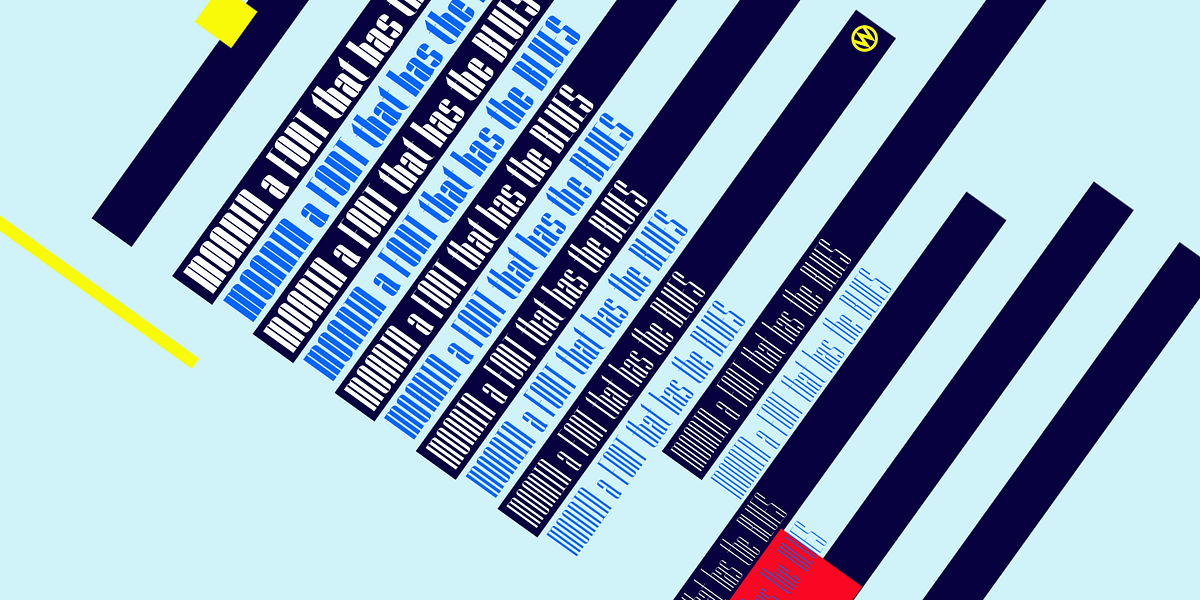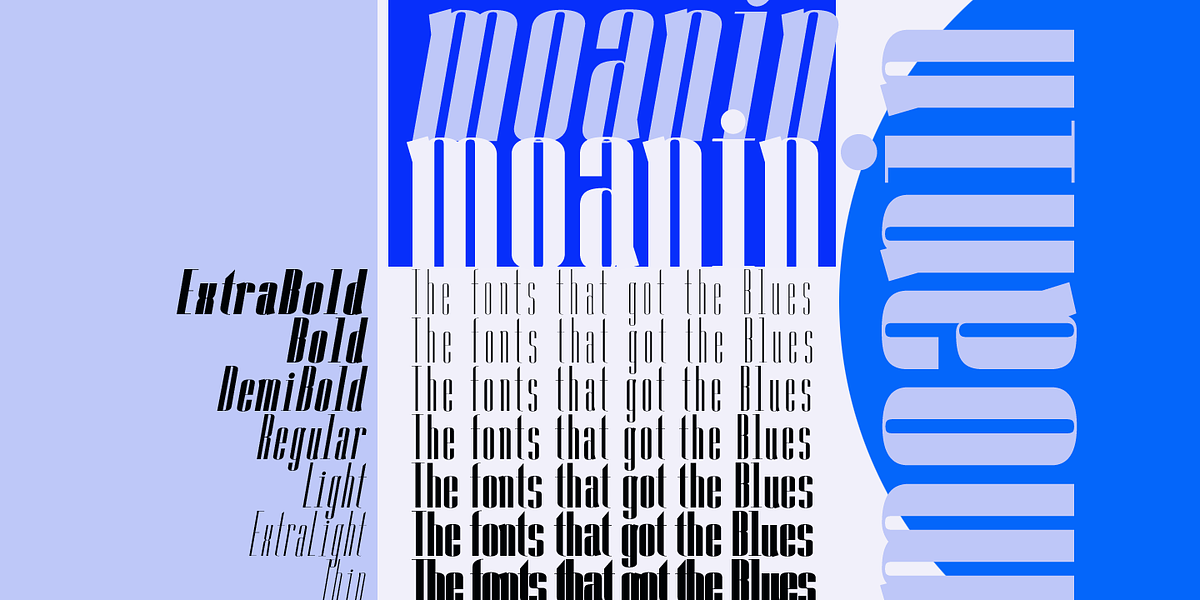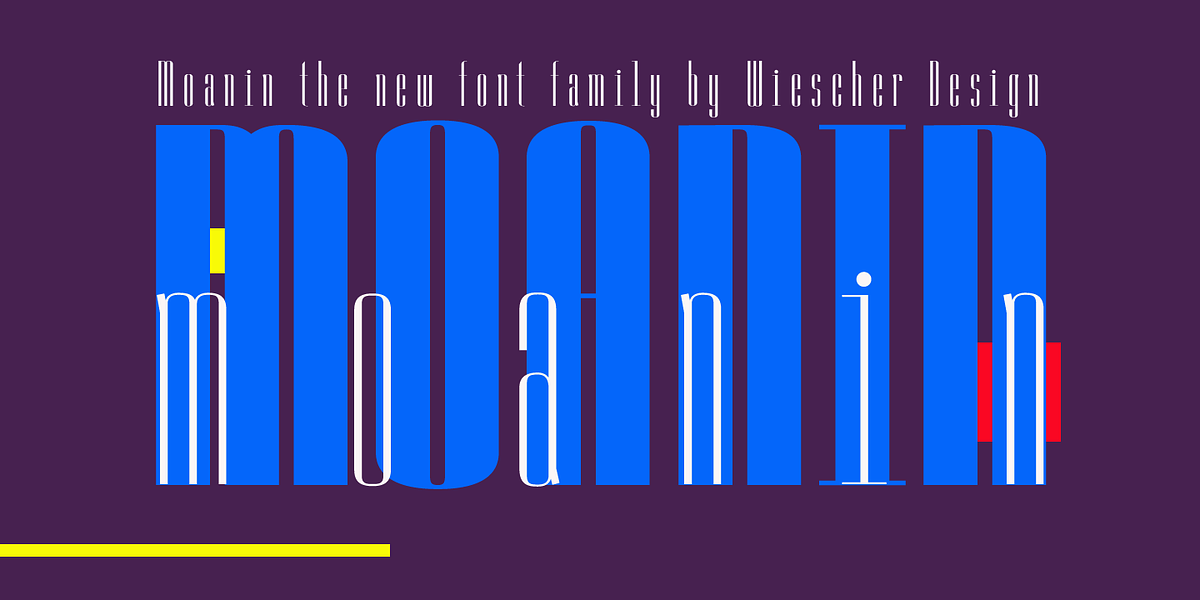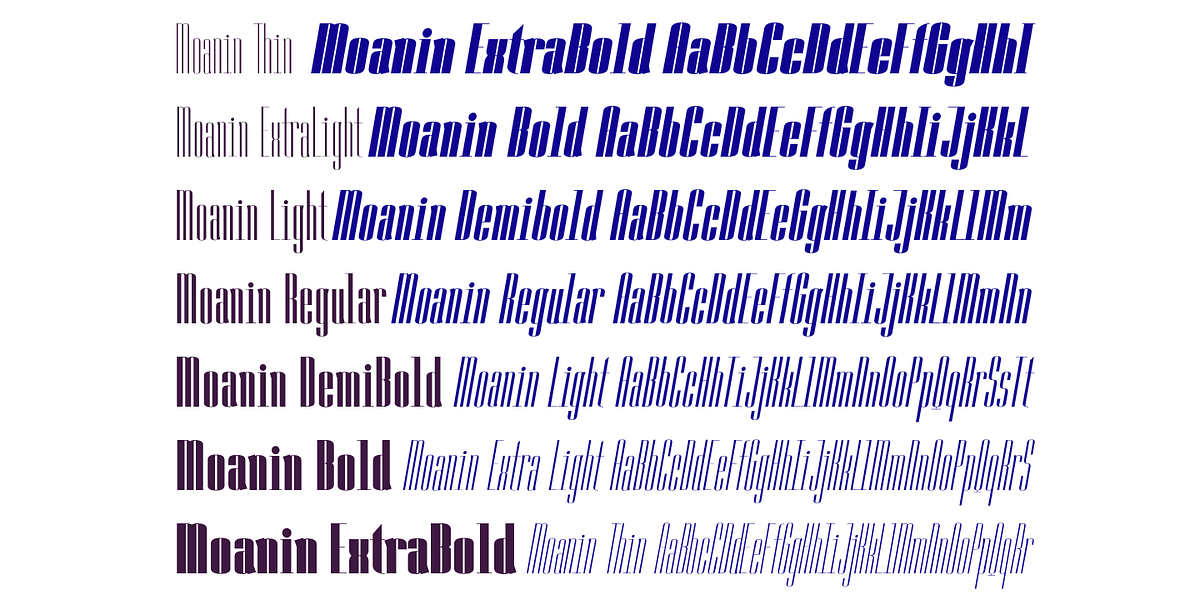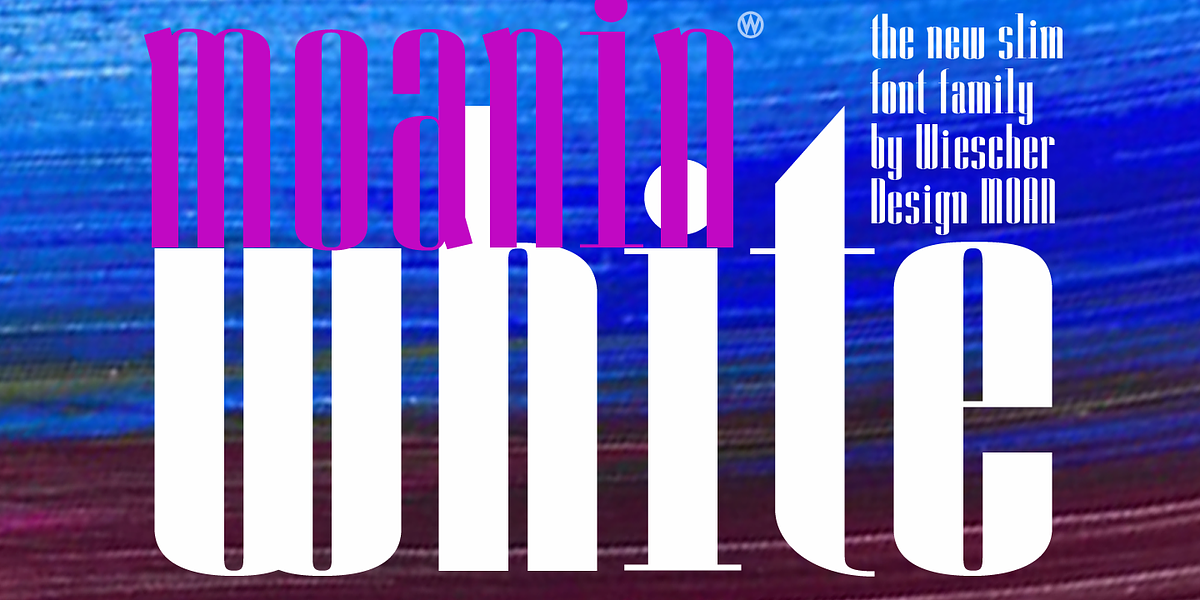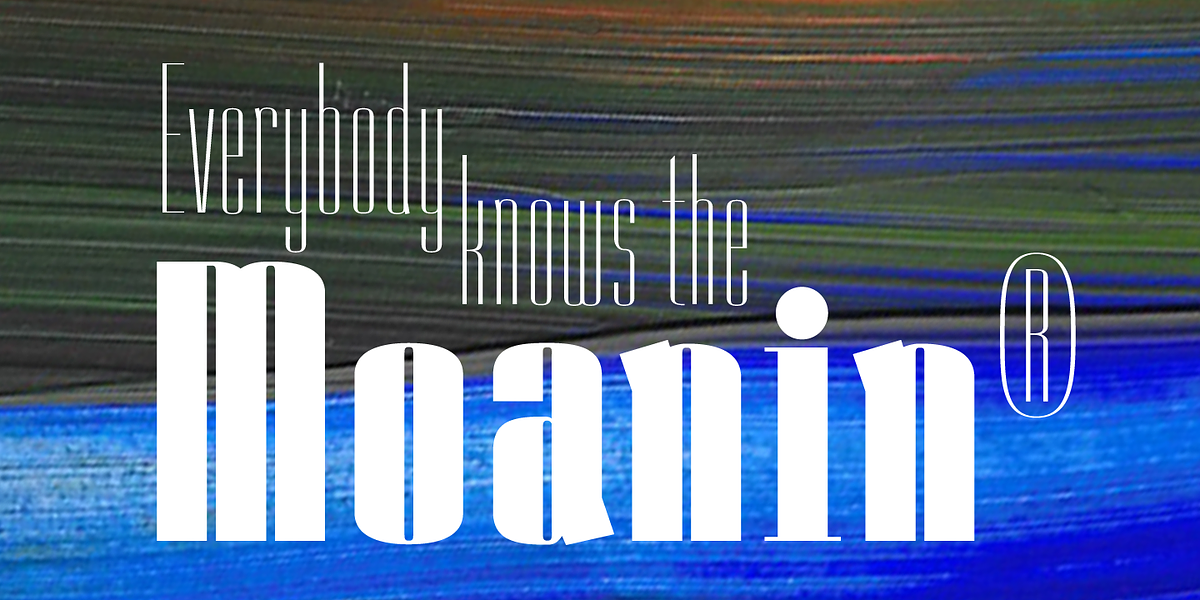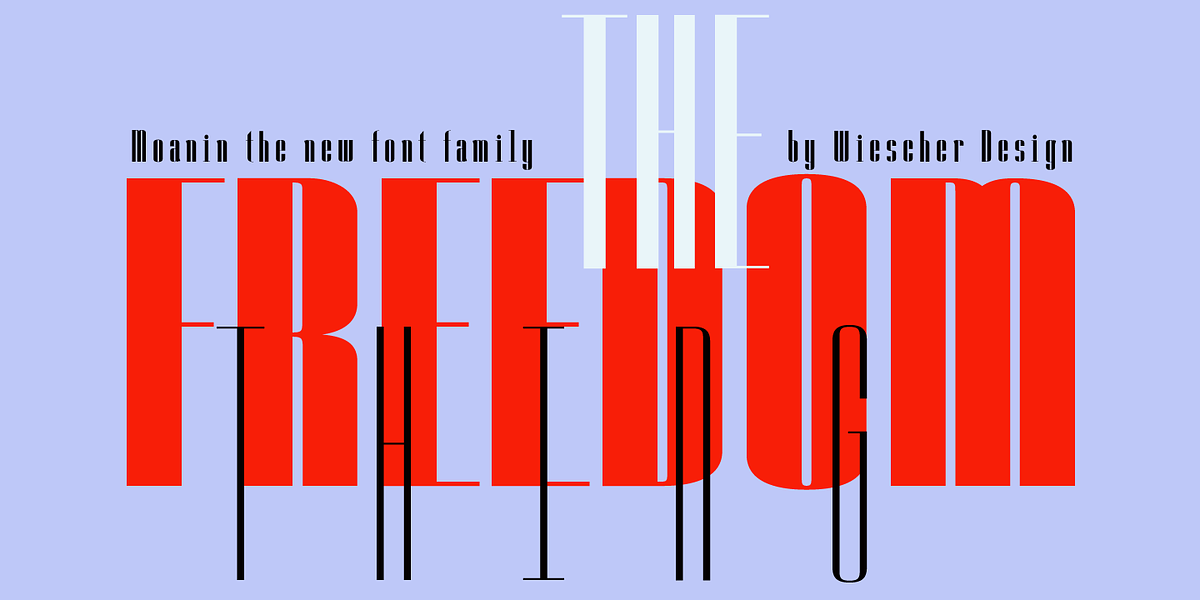
Moanin
This font is a straightforward sans serif typeface well-suited for headlines and display text. Its clean lines and lack of serifs make it easily readable even at larger sizes.